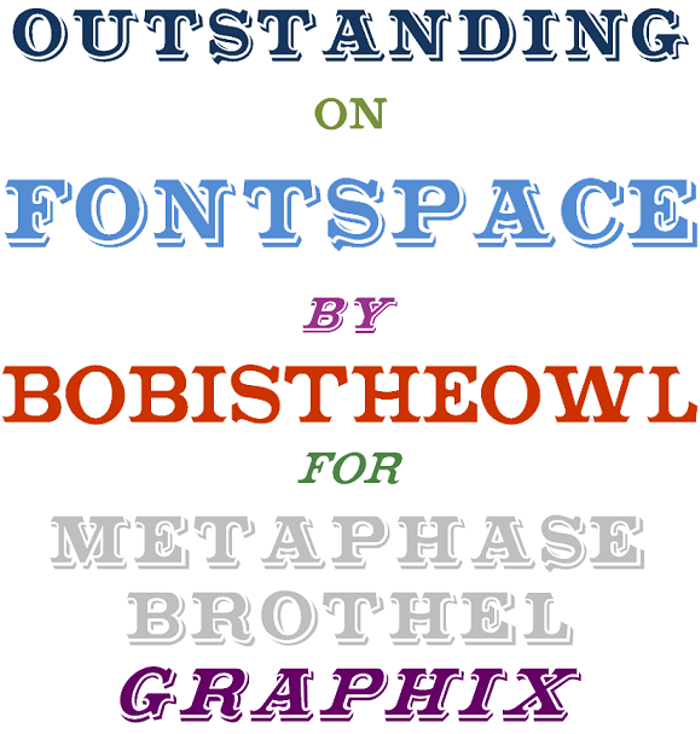
Outstanding Font
Outstanding is a great font for titles, signs, and athletic clothing.
"...meticulously processed by hand to create outlines that are smooth as a baby's bottom". - Luc Devroye